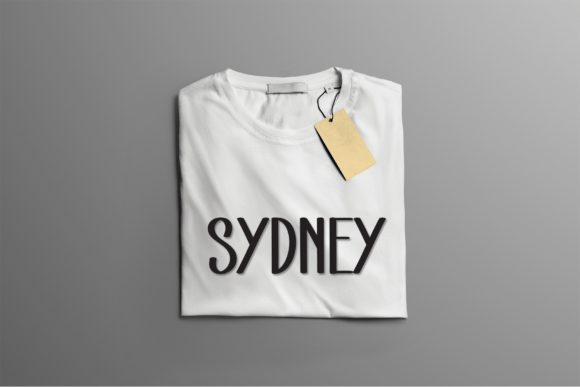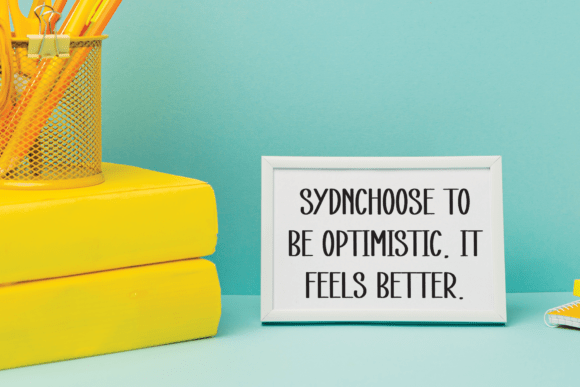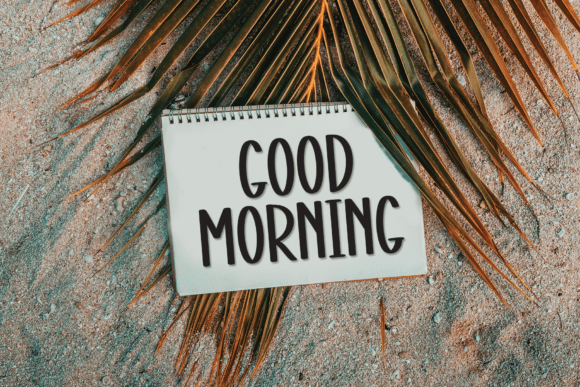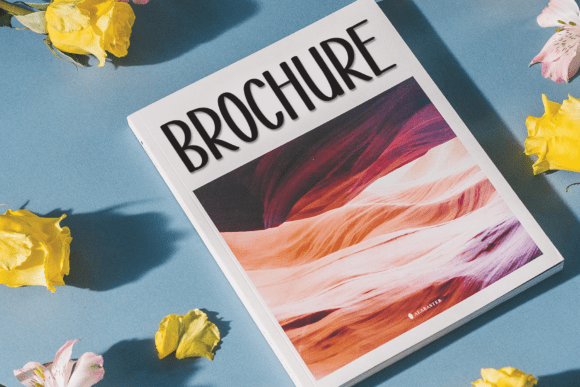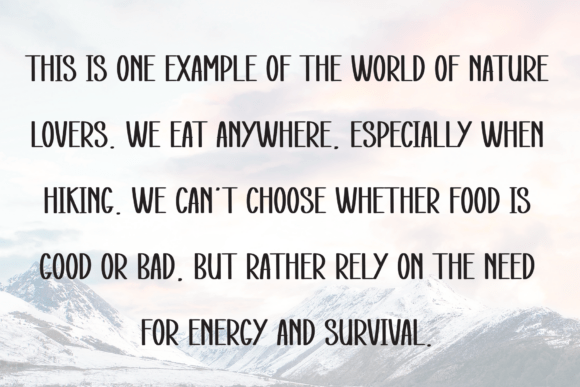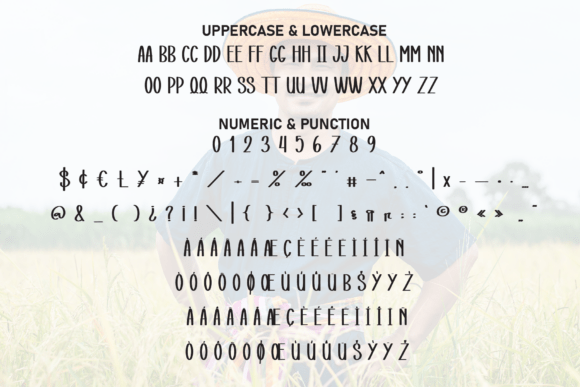
Hello Farmer Font: A Charmingly Playful Handwritten Display Font
Are you looking for a font that exudes sweetness and friendliness? Do you want to add a whimsical touch to your designs, whether it’s a wedding invitation, greeting card, or any other creative project? Look no further than the Hello Farmer Font, a charmingly playful handwritten display font that is sure to capture the magic of handwritten communiques.
What is Hello Farmer Font?
Hello Farmer Font is a unique and exquisite handwritten display font that is infused with warmth and vivacity. This font is perfectly crafted to add a touch of personality to any design, making it stand out from the crowd. With its delightful and playful vibe, Hello Farmer Font is ideal for designers and crafters who want to create beautiful and eye-catching designs that showcase their creativity.
Key Features of Hello Farmer Font
Hello Farmer Font has several key features that make it a standout font:
- Handwritten charm: Hello Farmer Font has a beautifully handwritten feel that captures the magic of handwritten communiques.
- Playful and whimsical: This font has a playful and whimsical touch that adds a delightful personality to any design.
- Warm and vivid: Hello Farmer Font is infused with warmth and vivacity, making it perfect for designs that require a friendly and approachable tone.
- Casual allure: This font has a casual allure that makes it perfect for designs that require a relaxed and informal tone.
- Fun vibe: Hello Farmer Font has a fun vibe that makes it perfect for designs that require a playful and energetic tone.
Uses of Hello Farmer Font
Hello Farmer Font is a versatile font that can be used for a variety of design projects, including:
- Wedding invitations: This font is perfect for wedding invitations, as it adds a touch of romance and whimsy to the design.
- Greeting cards: Hello Farmer Font is ideal for greeting cards, as it has a friendly and approachable tone that makes the recipient feel special.
- Social media graphics: This font is perfect for social media graphics, as it adds a playful and energetic touch to any design.
- Logos and branding: Hello Farmer Font can be used for logos and branding, as it has a unique and memorable feel that sets it apart from other fonts.
Why Choose Hello Farmer Font?
There are several reasons why you should choose Hello Farmer Font for your design projects:
- Unique and exclusive: Hello Farmer Font is a unique and exclusive font that will make your designs stand out from the crowd.
- Easily readable: This font is easily readable, making it perfect for designs that require a clear and concise message.
- High-quality: Hello Farmer Font is a high-quality font that is designed to deliver exceptional results.
- Versatile: This font is versatile and can be used for a variety of design projects.